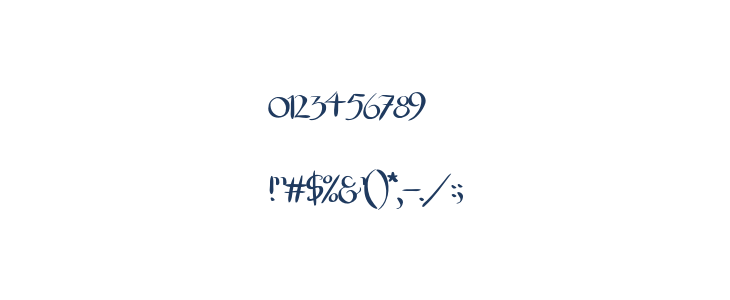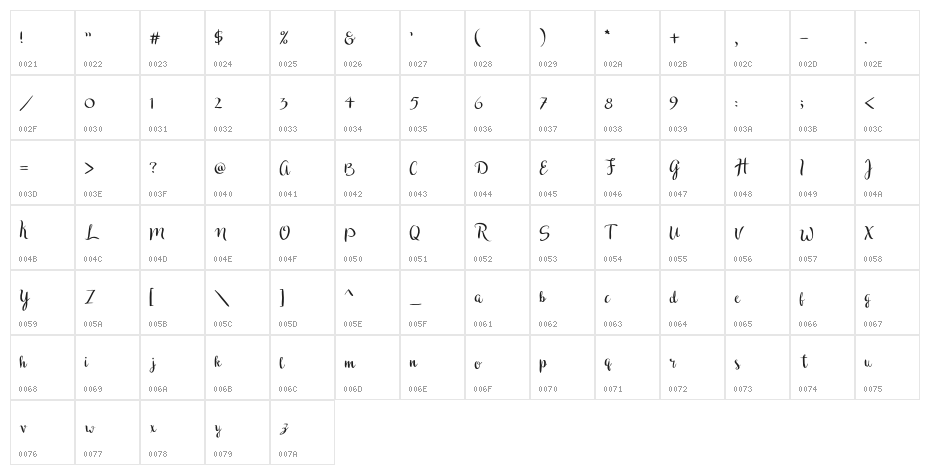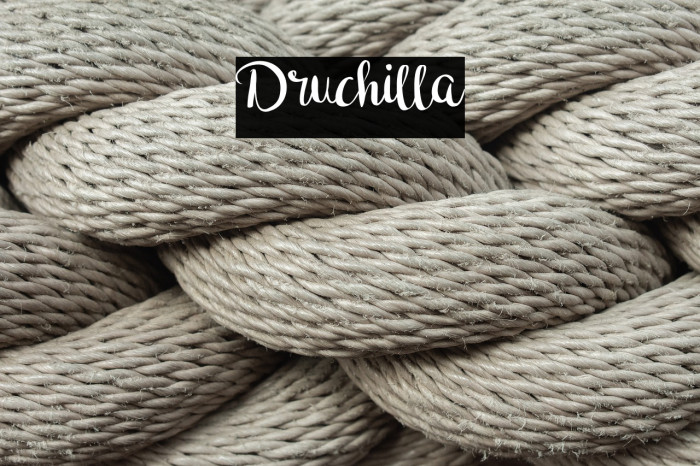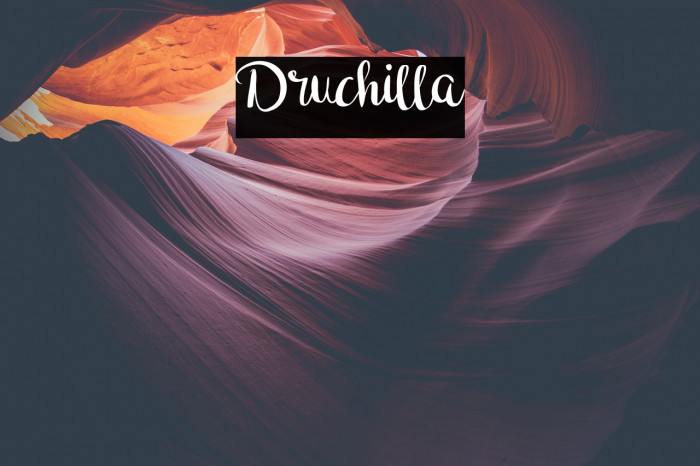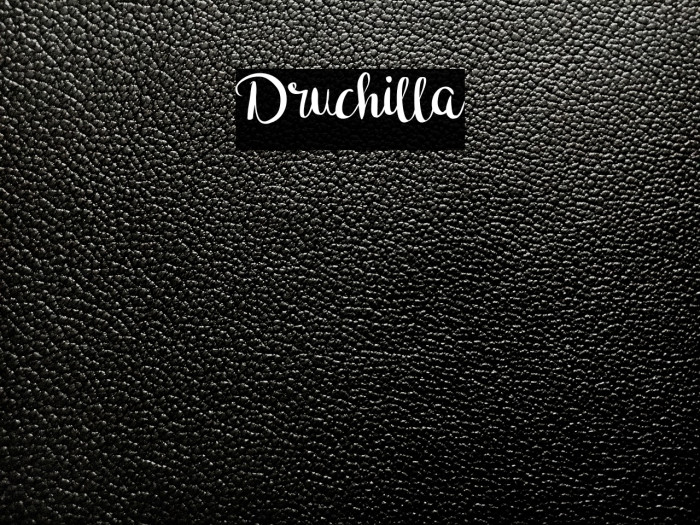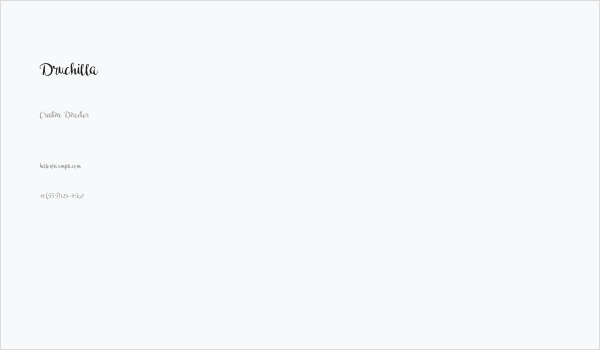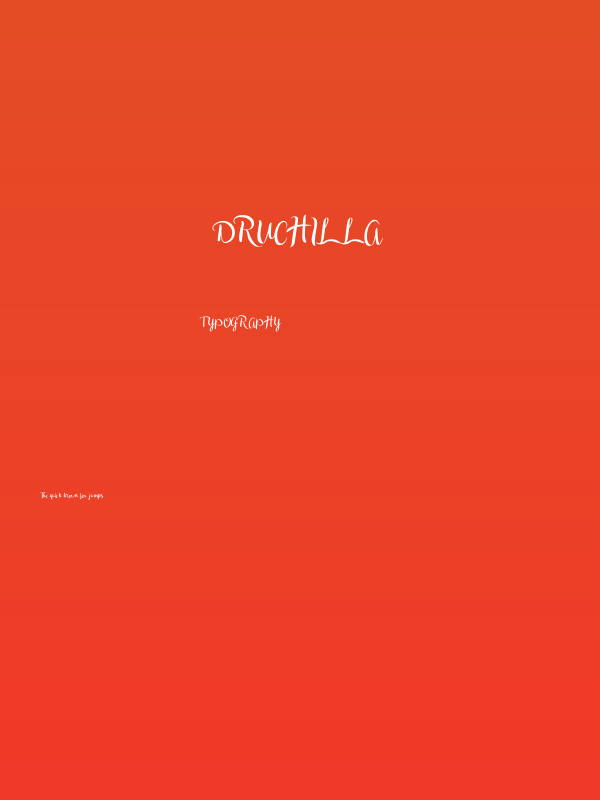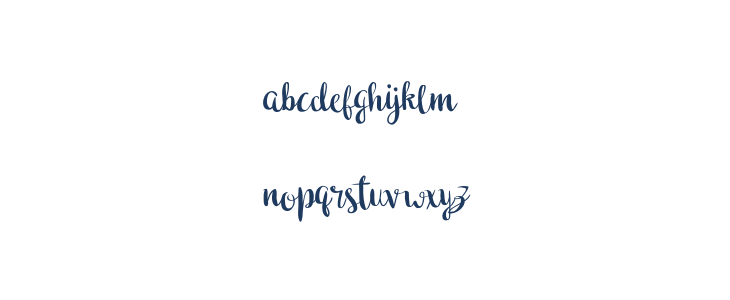
Druchilla Font
Druchilla Description
This font exudes a playful and elegant charm, characterized by its flowing, cursive style that mimics the fluidity of handwriting. The uppercase letters are bold and sweeping, with a slight slant that adds a dynamic feel. The lowercase letters maintain a consistent style, with loops and curves that enhance its handwritten appearance. Numbers and special characters are designed to match the overall aesthetic, ensuring a cohesive look across all text. The font's strokes vary in thickness, providing a medium contrast that adds depth and interest. Its decorative nature makes it ideal for projects that require a personal touch.